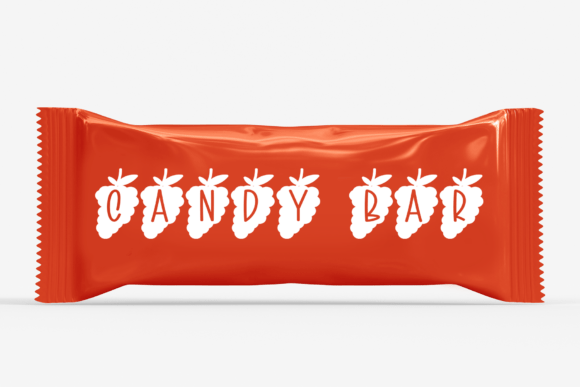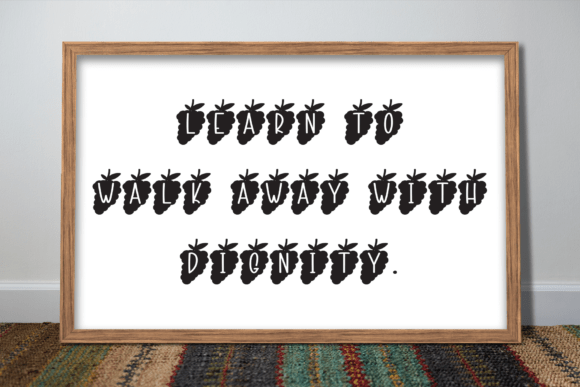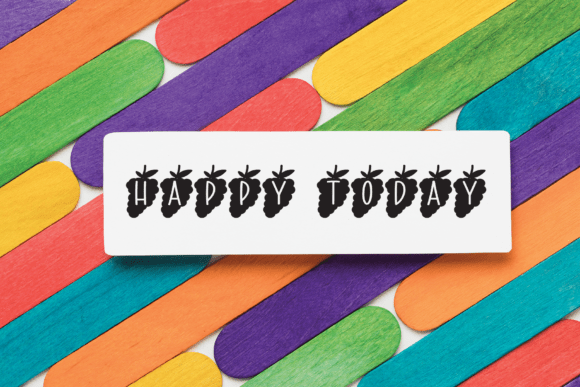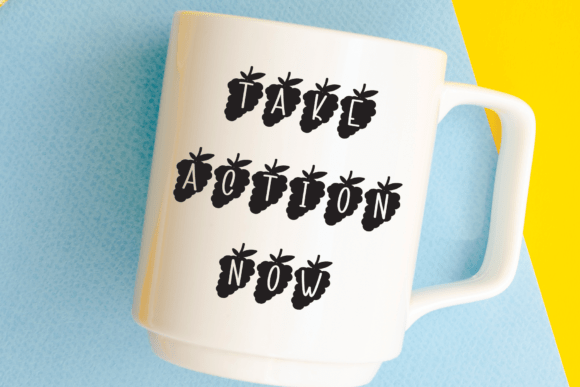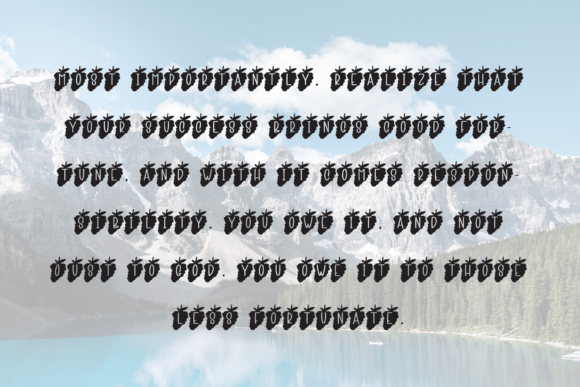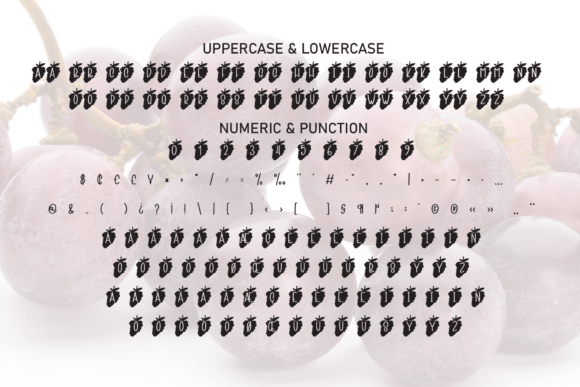
Introducing Grape Alphabet Font: A Whimsical and Playful Typeface for Designers and Crafters
Are you tired of using traditional fonts that lack personality and whimsy? Look no further than Grape Alphabet Font, a creative and unique display font that’s sure to bring a playful, organic soul to your text. This innovative typeface is designed to add a touch of fun and approachability to your designs, making it perfect for a variety of projects, from children’s menu designs to local vineyard merchandise.
A Fresh Take on Traditional Typography
Grape Alphabet Font takes a fresh approach to traditional typography by replacing traditional letterforms with adorable, high-contrast silhouettes of a bunch of grapes. Each letter is carefully crafted to resemble a bunch of grapes, complete with a tiny stem and leaf poking from the top. This unique design element adds a touch of whimsy and playfulness to your text, making it instantly more engaging and fun to read.
Grape Alphabet Font is an extraordinary option for a wide range of projects, including:
• Children’s menu designs: Add a touch of fun and playfulness to your restaurant’s menu with Grape Alphabet Font.
• Organic juice branding: Create a brand identity that’s fresh, fun, and playful with Grape Alphabet Font.
• Kindergarten event posters: Make your event posters stand out with a font that’s both fun and engaging.
• Local vineyard merchandise: Add a touch of whimsy to your vineyard’s merchandise with Grape Alphabet Font.
• Playful kitchen labels: Create labels that are both fun and functional with Grape Alphabet Font.
Professional Design Approachability and Handcrafted Charm
Grape Alphabet Font adds a wonderful sense of professional design approachability and legendary handcrafted charm to your typography layouts. The font’s unique design elements and high-contrast silhouettes give your text a fresh and fun feel, making every title feel instantly more engaging and playful. Whether you’re a designer or crafter, Grape Alphabet Font is the perfect choice for anyone looking to add a touch of whimsy to their projects.
Key Features of Grape Alphabet Font
• Unique and creative design elements
• High-contrast silhouettes of a bunch of grapes
• Tiny stem and leaf details add a touch of realism
• Perfect for a variety of projects, from children’s menu designs to local vineyard merchandise
• Adds a sense of professional design approachability and handcrafted charm to your typography layouts
Tips for Using Grape Alphabet Font
Here are a few tips for using Grape Alphabet Font in your designs:
• Use Grape Alphabet Font as a display font to add a touch of whimsy to your text.
• Experiment with different colors and textures to add depth and interest to your designs.
• Pair Grape Alphabet Font with a traditional font to create a fun and playful contrast.
• Use Grape Alphabet Font to create eye-catching headlines and titles that grab attention.
Grape Alphabet Font is a unique and creative display font that’s perfect for designers and crafters looking to add a touch of whimsy to their projects. With its high-contrast silhouettes of a bunch of grapes and tiny stem and leaf details, this font is sure to bring a playful, organic soul to your text. Whether you’re working on a children’s menu design, organic juice branding, or local vineyard merchandise, Grape Alphabet Font is the perfect choice for anyone looking to add a sense of fun and approachability to their designs.